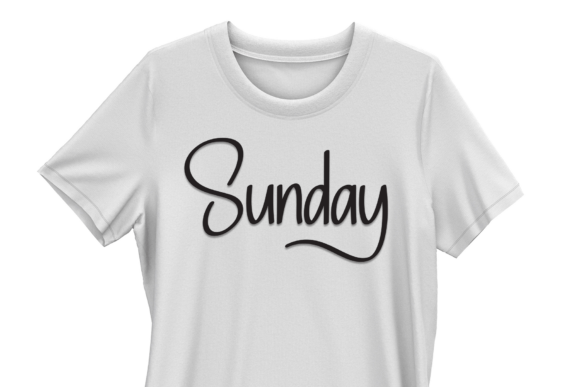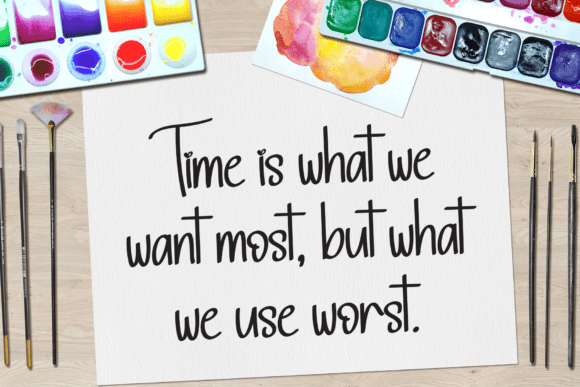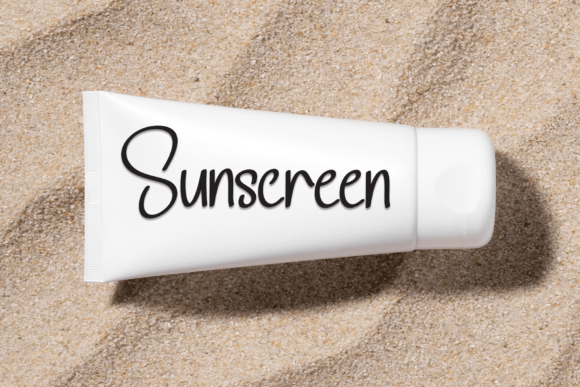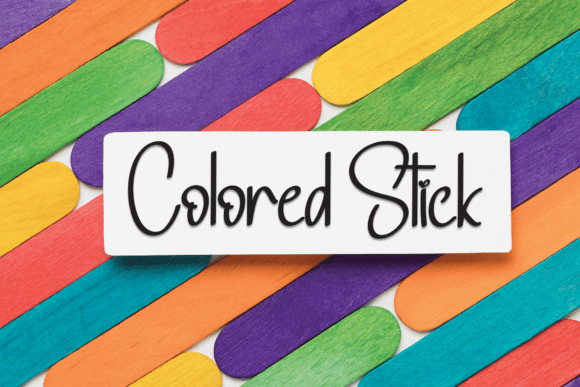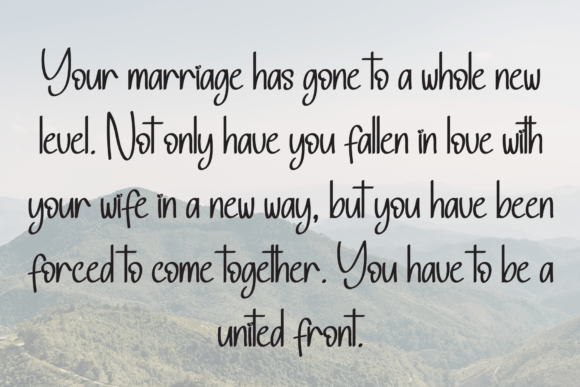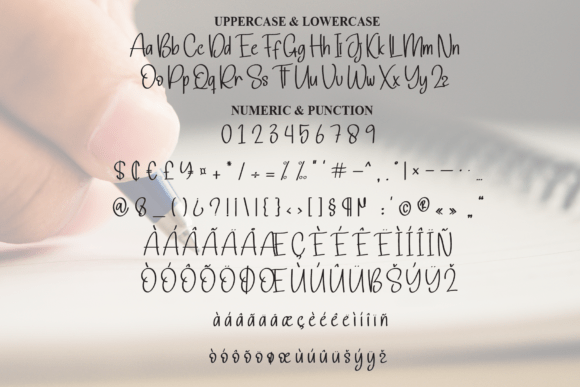
Introducing Autography Font: The Sweetest Handwritten Display Font for Your Designs
Are you looking for a font that can add a touch of warmth and playfulness to your designs? Look no further than Autography Font, a delightfully friendly and heartwarming handwritten display font that’s perfect for creating beautiful wedding invites, heartfelt cards, and more. In this article, we’ll dive into the world of Autography Font and explore its features, benefits, and uses.
A Whimsical yet Elegant Font for Your Designs
Autography Font is a unique and charming handwritten display font that’s designed to bring a dash of sweetness to your creations. Its whimsical yet elegant vibe makes it perfect for designing wedding invites, crafting heartfelt cards, and creating any design that seeks a touch of merriment and warmth. With Autography Font, you can add a personal touch to your designs and make them stand out from the crowd.
Key Features of Autography Font
- Handwritten Display Font: Autography Font is a handwritten display font that’s designed to look like it was written with love and care.
- Whimsical yet Elegant: This font has a unique blend of whimsy and elegance, making it perfect for a wide range of design applications.
- Playful and Fun: Autography Font is the perfect choice for designs that need a touch of playfulness and fun.
- Perfect for Wedding Invites and Cards: This font is ideal for designing beautiful wedding invites, heartfelt cards, and other special occasion designs.
Benefits of Using Autography Font
So, why should you choose Autography Font for your designs? Here are just a few benefits of using this amazing font:
- Adds a Personal Touch: Autography Font adds a personal touch to your designs, making them feel more handmade and special.
- Versatile: This font is versatile and can be used for a wide range of design applications, from wedding invites to social media graphics.
- Easy to Read: Autography Font is easy to read, even at small sizes, making it perfect for designs that need to be legible.
- Unique and Eye-Catching: This font is unique and eye-catching, making it perfect for designs that need to stand out from the crowd.
Uses of Autography Font
So, what can you use Autography Font for? The possibilities are endless! Here are a few ideas to get you started:
- Wedding Invites: Use Autography Font to design beautiful and elegant wedding invites that set the tone for the big day.
- Heartfelt Cards: Create heartfelt cards for special occasions like birthdays, anniversaries, and holidays.
- Social Media Graphics: Use Autography Font to create eye-catching social media graphics that showcase your brand’s personality.
- Branding and Packaging: Use this font to create unique and memorable branding and packaging designs that stand out from the crowd.
Tips for Using Autography Font
Here are a few tips for using Autography Font in your designs:
- Use it Sparingly: Use Autography Font sparingly to add a touch of elegance and whimsy to your designs.
- Pair it with Other Fonts: Pair Autography Font with other fonts to create a unique and eye-catching design.
In conclusion, Autography Font is a delightful handwritten display font that’s perfect for adding a touch of sweetness and whimsy to your designs. With its unique blend of elegance and playfulness, this font is ideal for designing wedding invites, crafting heartfelt cards, and creating any design that seeks a touch of merriment and warmth. So why wait? Download Autography Font today and start creating beautiful designs that showcase your personality and style!